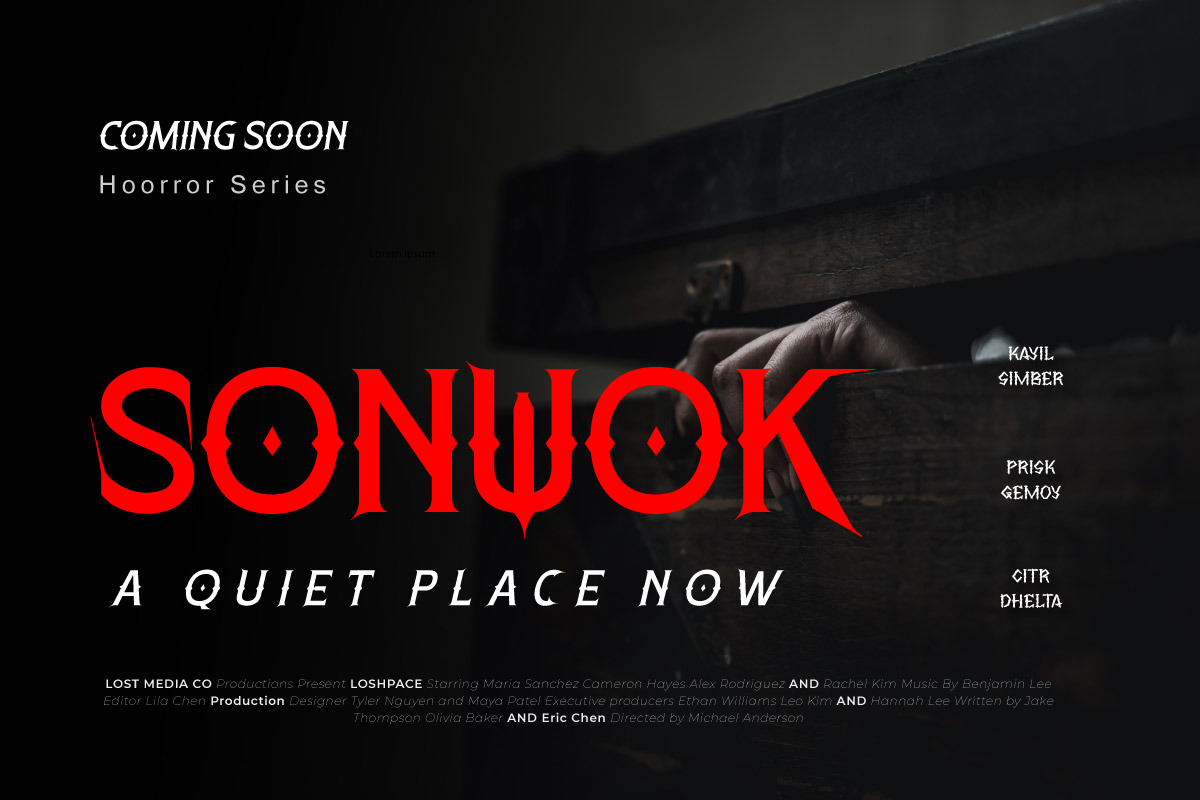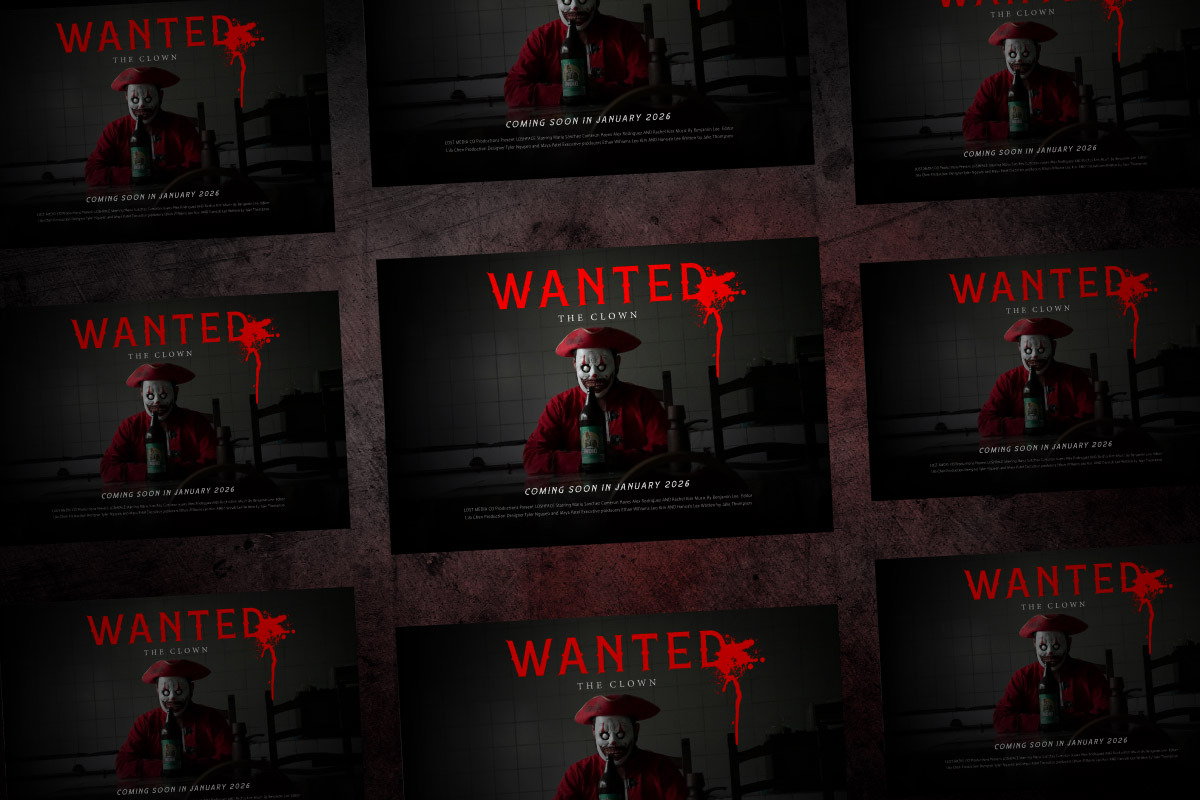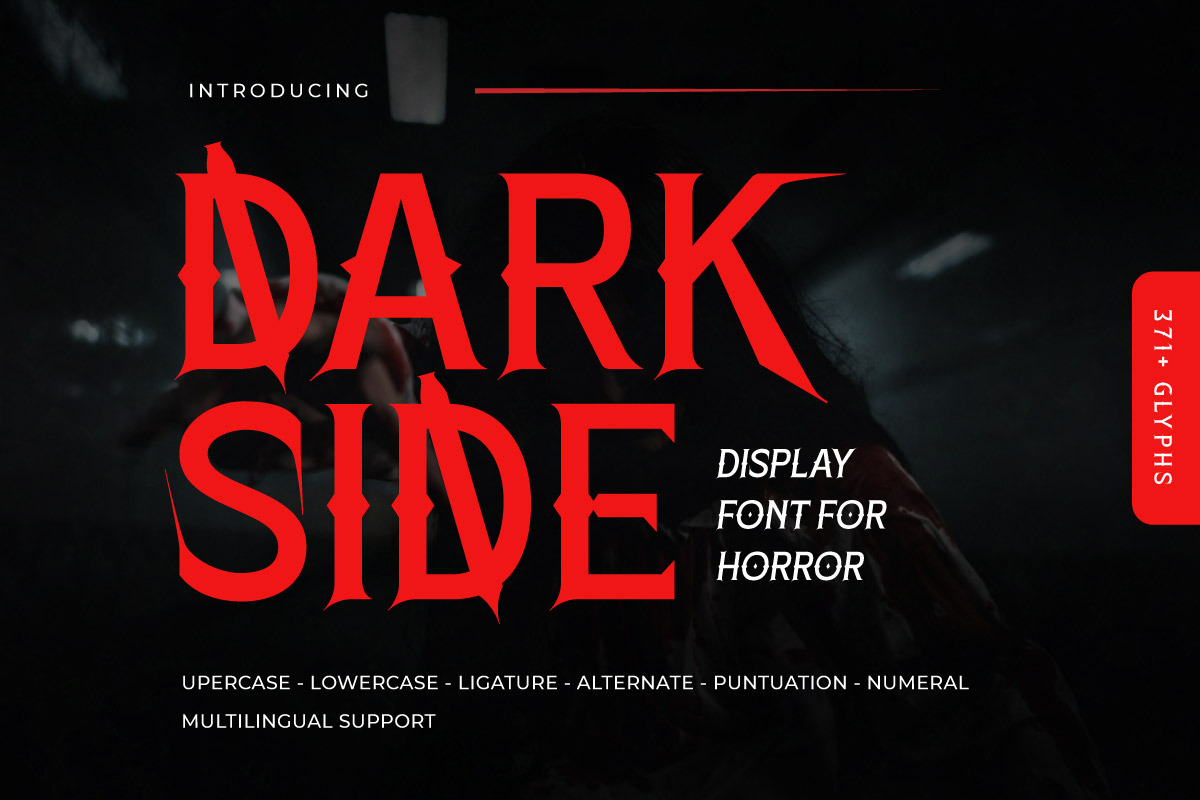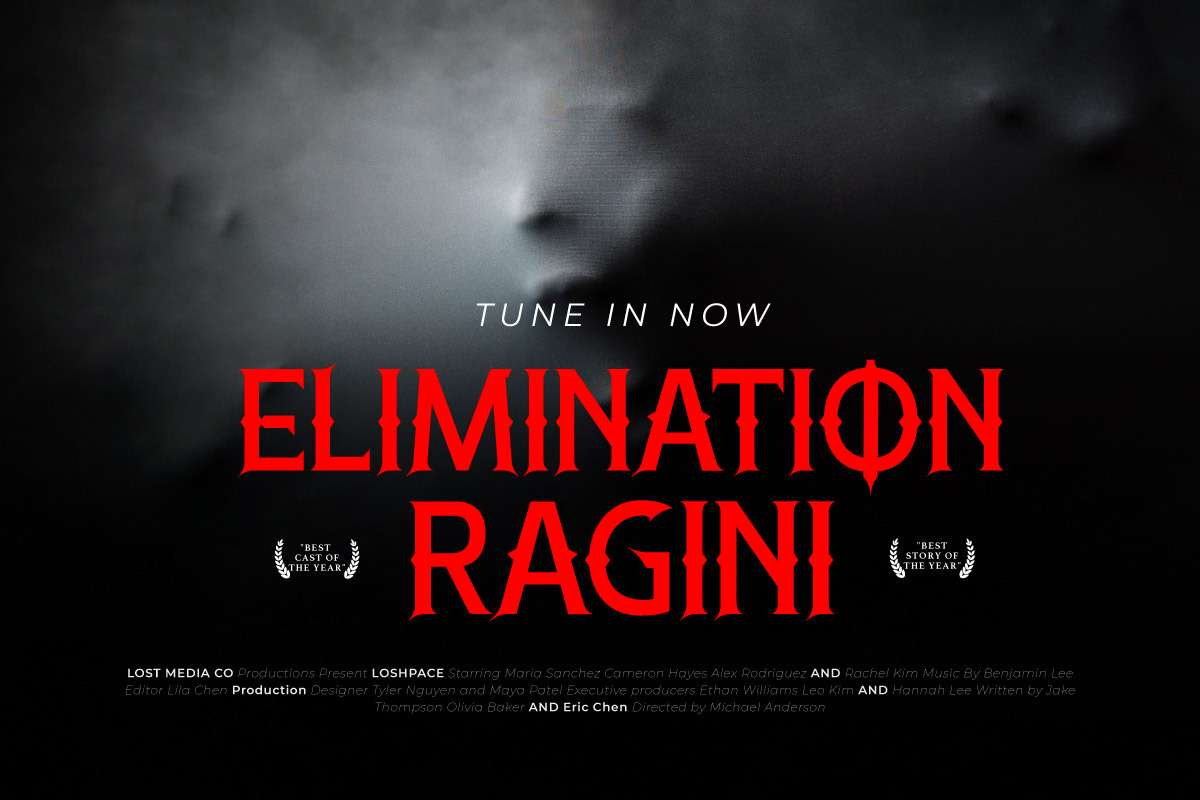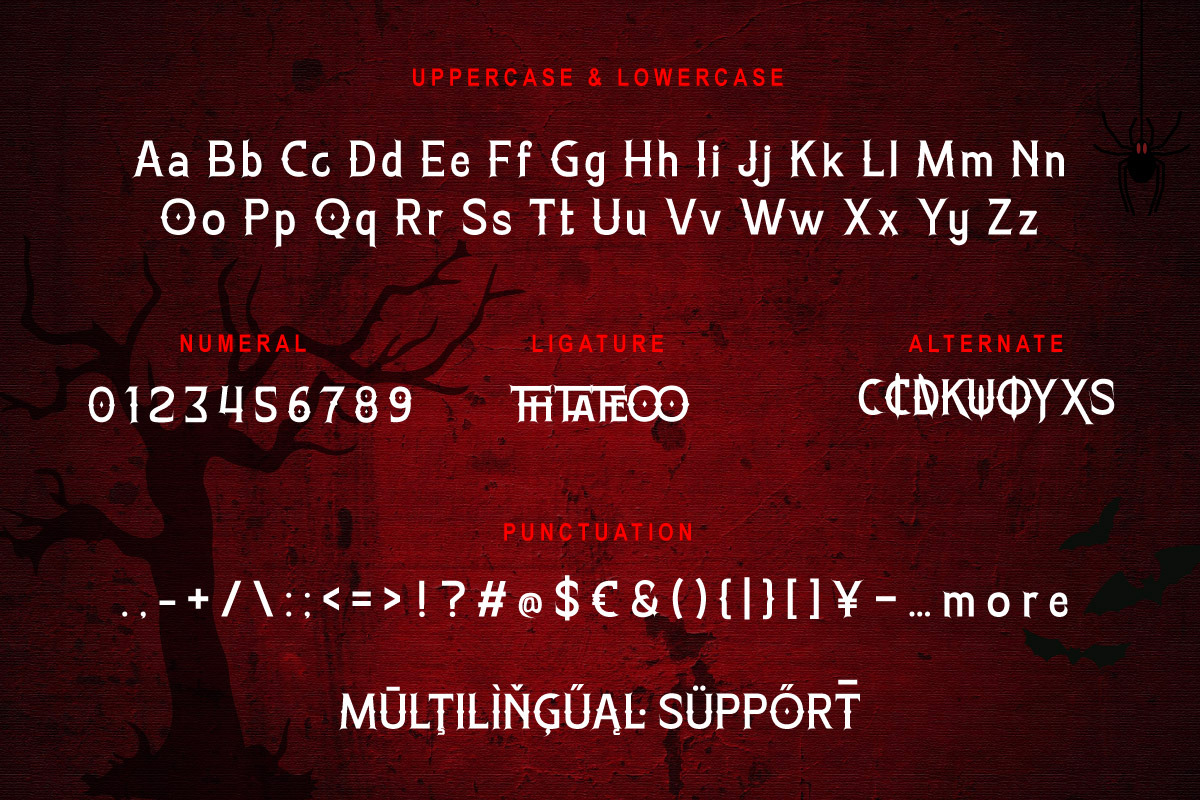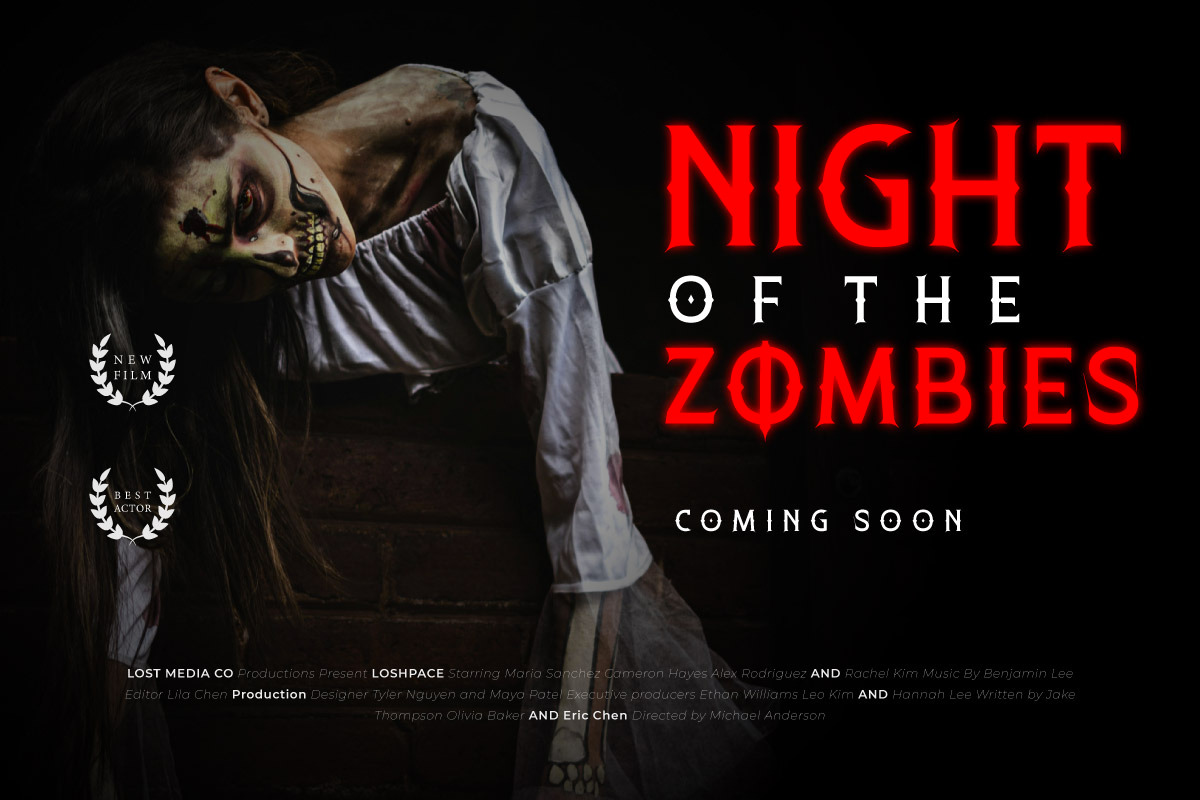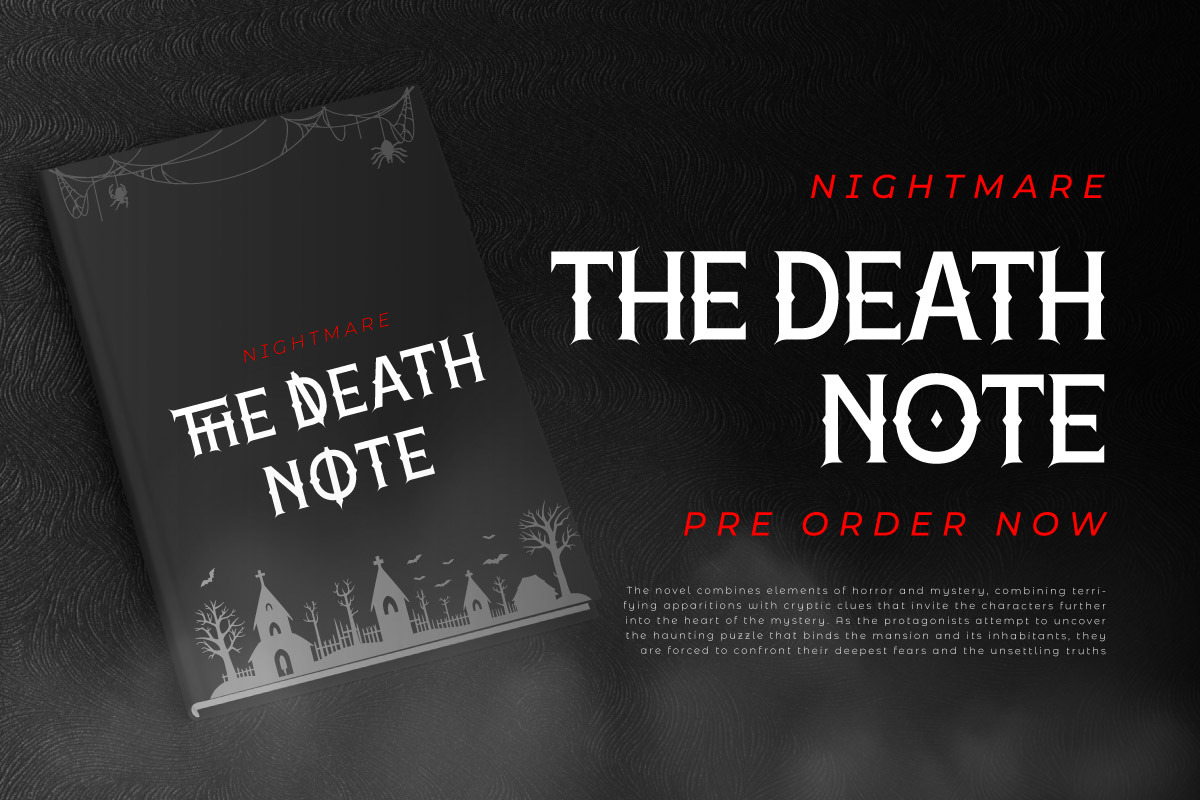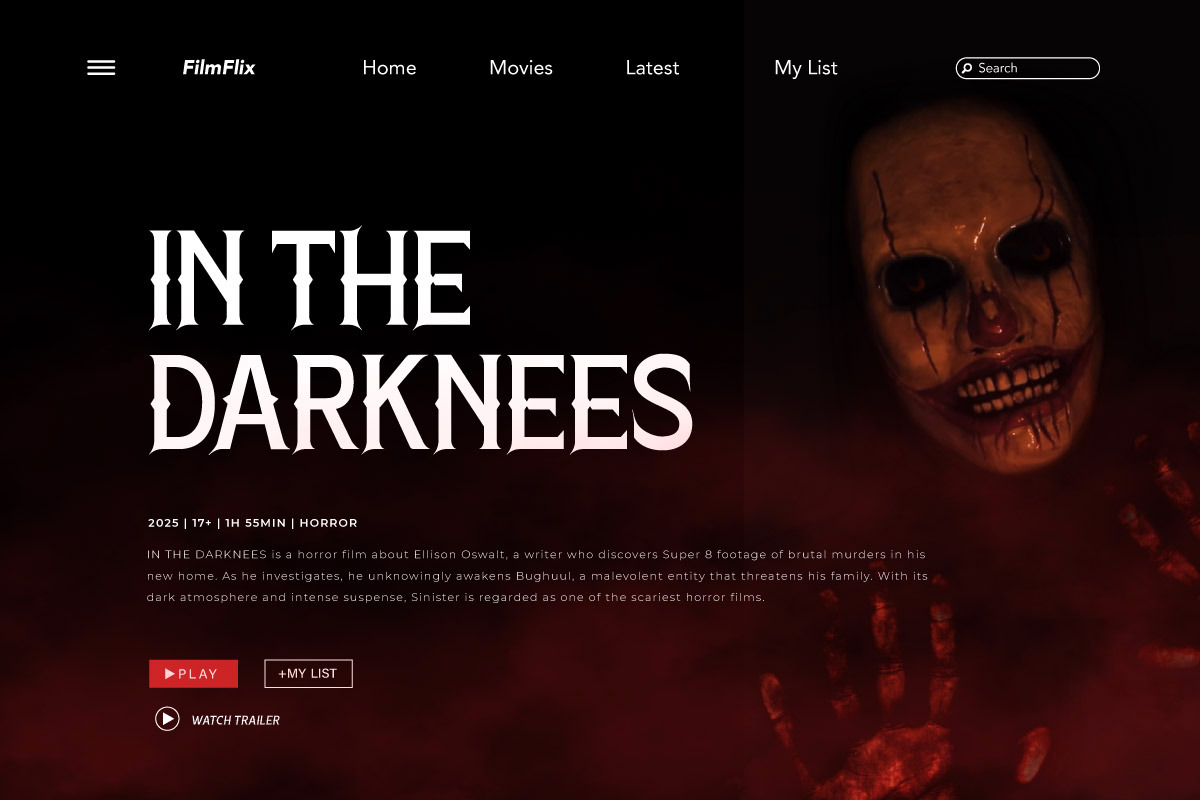
Darkside - Horror Movie Font
Darkside is a chilling horror movie display font that embodies the essence of fear, suspense, and darkness. With jagged edges, unsettling curves, and an intense visual impact, this font is perfect for projects that dive deep into the eerie and macabre. Whether you're working on a horror film title, thriller poster, scary game logo, or haunted house branding, Darkside delivers an unforgettable sinister vibe.
Designed to send shivers down the spine, each letter in Darkside looks like it was carved from shadows—evoking images of lurking creatures, haunted forests, and terrifying mysteries. It’s bold, dramatic, and screams horror in every stroke, making it the go-to typeface for anything spine-tingling and scream-worthy.
Let your designs enter the darkness with Darkside, a typeface that doesn’t just speak horror—it haunts it.